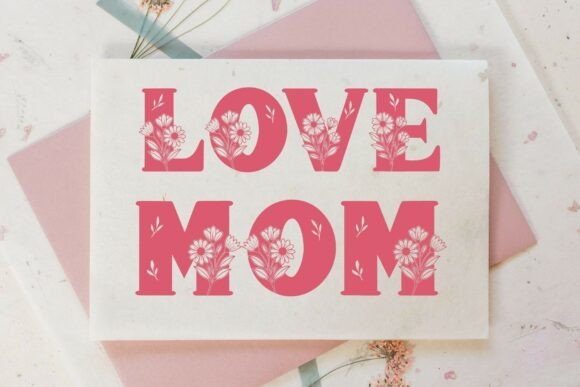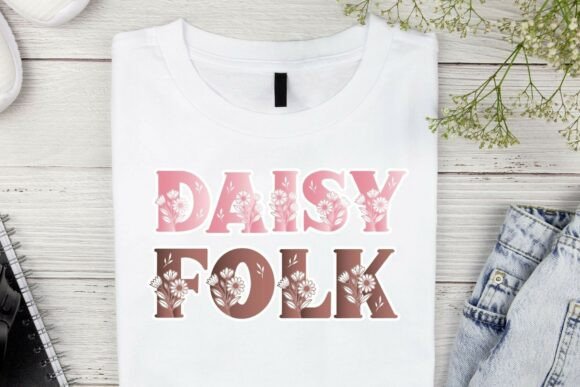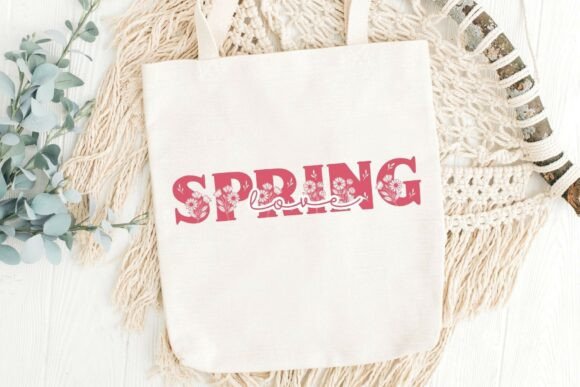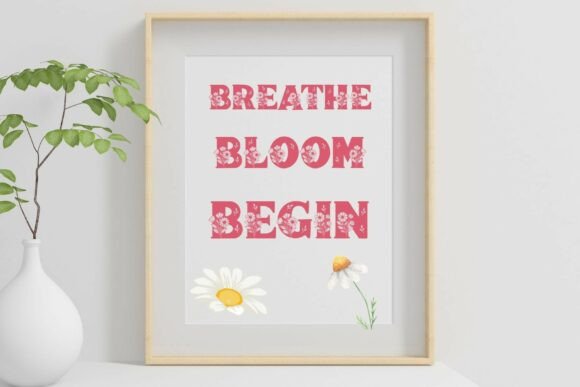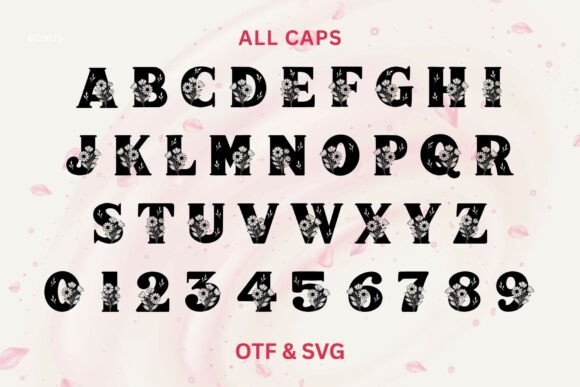
Introduction to Daisyfolk Font
Do you remember the moment when you stumbled upon the perfect font for a project, and it all came together? The feeling of excitement and satisfaction is what drives many designers to continue creating. For those who specialize in spring-themed designs, wedding stationery, or bohemian-inspired crafts, the right font can be a game-changer. That’s where the Daisyfolk Font comes in – a charming, all-caps decorative font filled with daisy illustrations that’s sure to add a touch of whimsy to your creative projects.
Whether you’re a seasoned designer or a hobbyist looking for a high-quality design resource, the Daisyfolk Font is a valuable addition to your toolkit. Its transparent background makes it perfect for cutting-edge designs, and the fact that it’s available for free download in OTF + SVG format means you can use it with popular design software like Cricut and Procreate. With its natural, soft boho chic vibe, this font is sure to bring a smile to your customers’ faces and set your designs apart from the crowd.
- Unique, hand-drawn design with a whimsical feel, perfect for creative projects and design resources.
- Features a transparent background, allowing for seamless integration with any design element.
- High-resolution design, suitable for use in print and digital applications, with a minimum resolution of 300 DPI.
- Includes a comprehensive character set, covering a wide range of languages and characters.
- Designed to be highly customizable, with multiple style options and a range of font sizes available.
Honest Review: Daisyfolk Font
As a designer, I’m always on the lookout for high-quality design resources to elevate my creative projects. The Daisyfolk Font has caught my attention, and I’m excited to share my honest review with you.
- ✨ Beautiful and unique design style, perfect for those looking for something beyond the usual sans-serif fonts.
- ✨ High-quality typography, making it suitable for both print and digital applications.
- ✨ Transparent background, allowing for seamless integration into various design elements.
- ⚠️ Limited font weights and styles, which might not be suitable for complex design projects.
- ⚠️ Not ideal for large-scale text, as it can become difficult to read at smaller font sizes.
Overall, I’m impressed with the Daisyfolk Font’s unique design and high-quality typography. While it has some limitations, it’s still a valuable resource for designers looking to add a touch of whimsy to their creative projects. With a free download option and transparent background, it’s definitely worth considering for your next design project.
Daisyfolk Font
The Daisyfolk Font is a versatile design resource ideal for creative projects that require a unique touch. It’s available for free download and features a transparent background, making it perfect for overlaying on images or videos.
Tips for Getting the Most Out of Daisyfolk Font
To get the most out of the Daisyfolk Font, try using it in conjunction with other design elements, such as images and graphics. You can also experiment with different font sizes and colors to create a unique look.
The Daisyfolk Font is ideal for use in a variety of creative projects, including branding, advertising, and digital media. Its high-quality design makes it perfect for use in both print and digital applications.